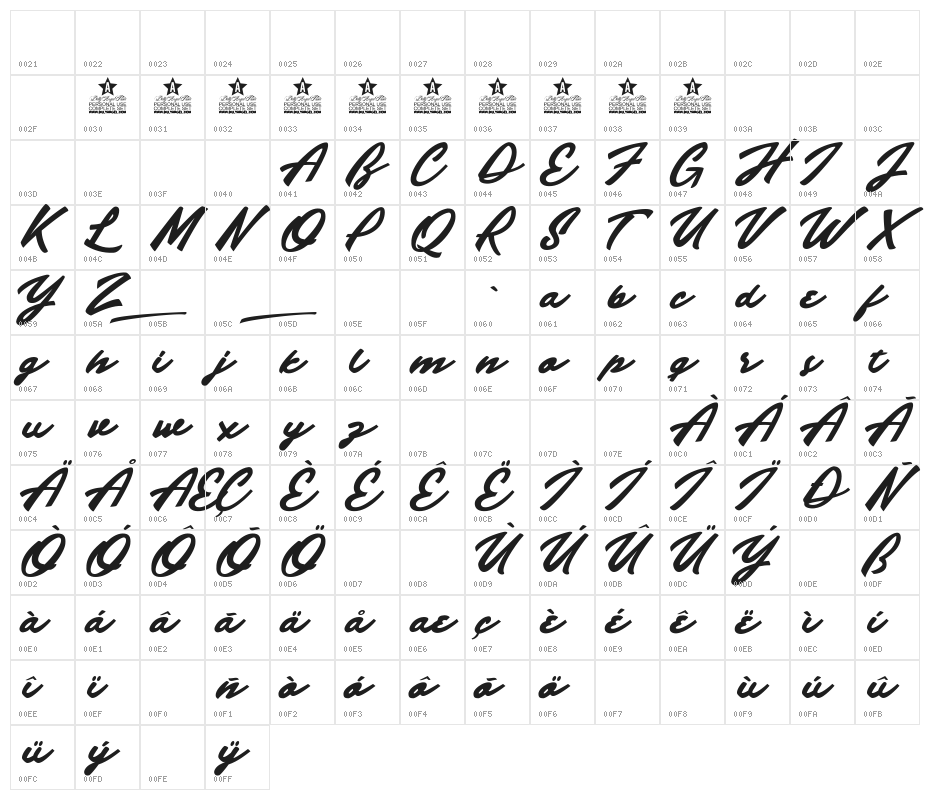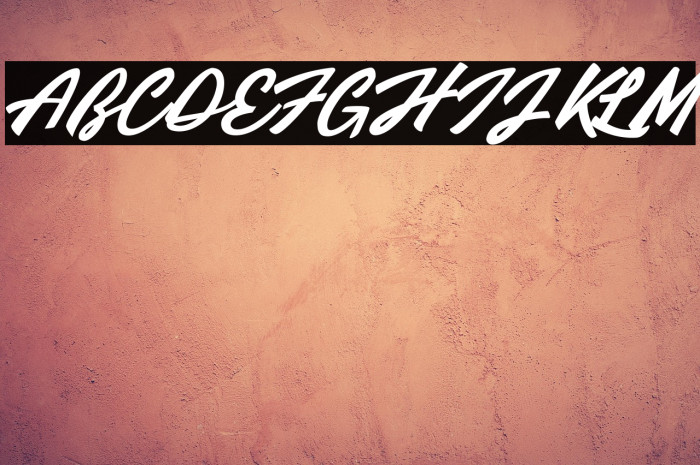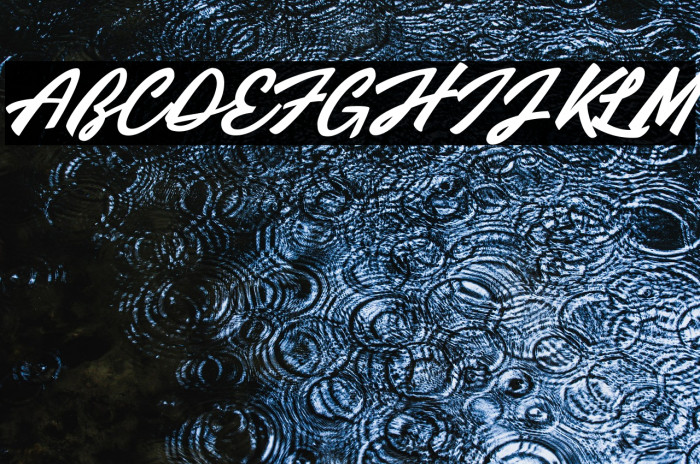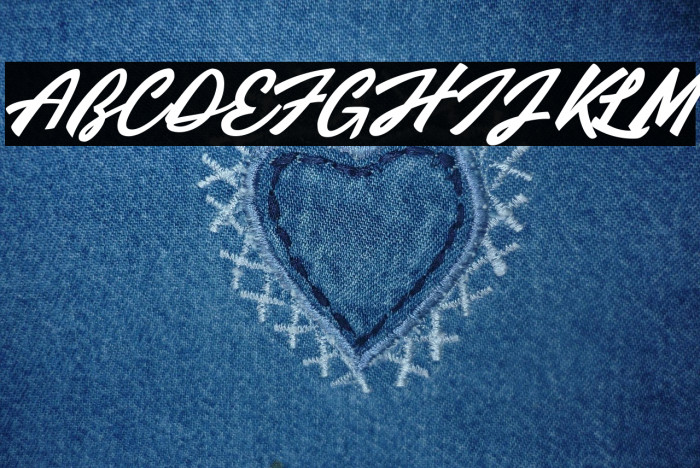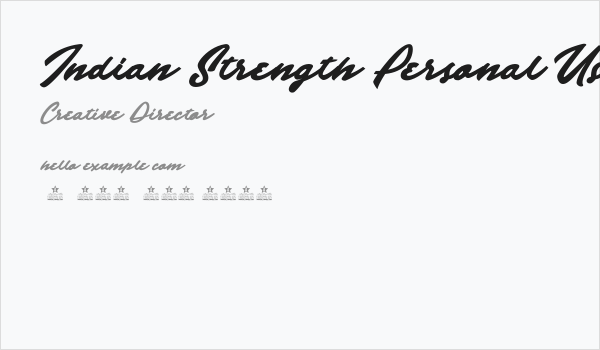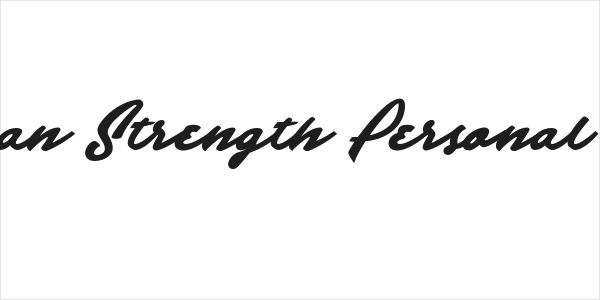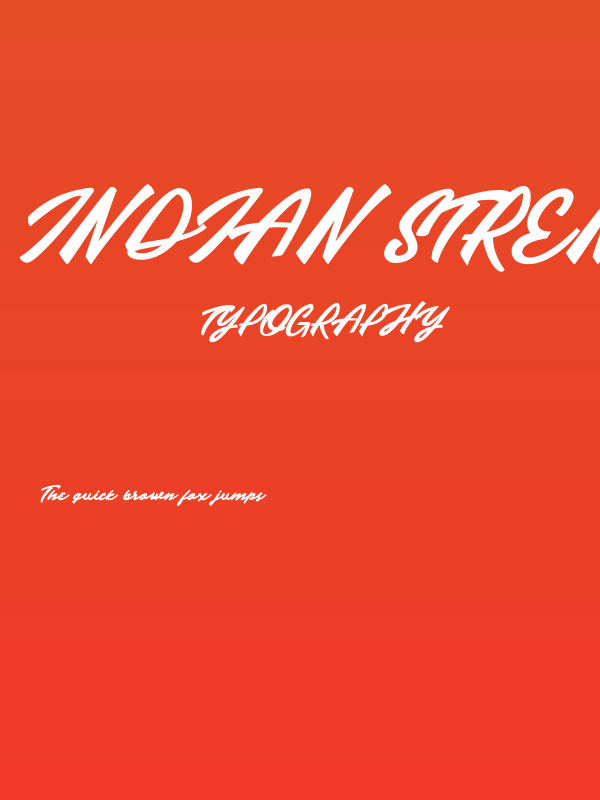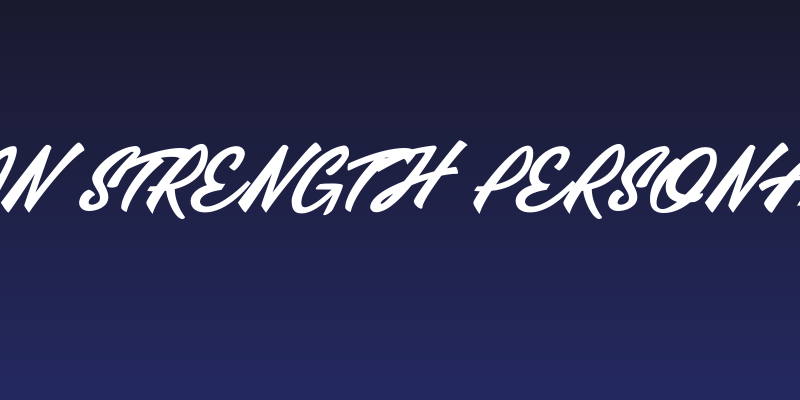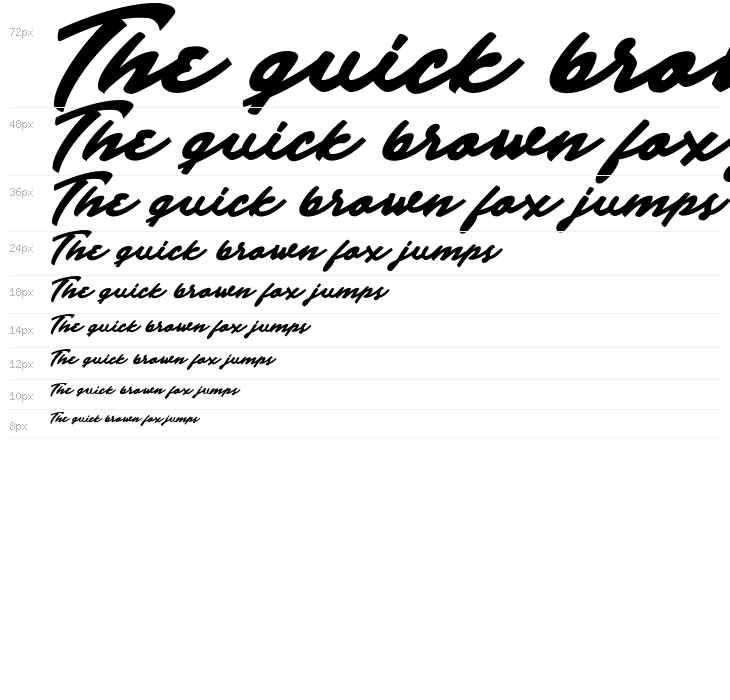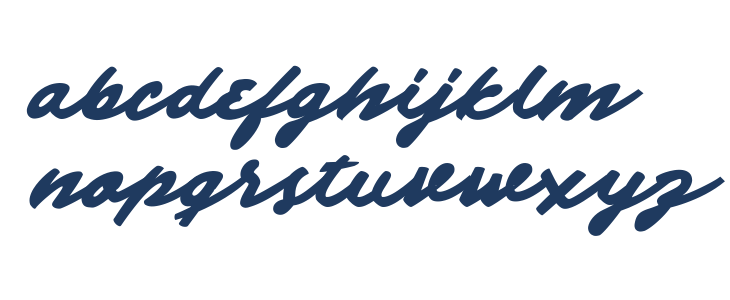
Indian Strength Personal Use Font
Indian Strength Personal Use Description
This font features a bold, script style with a strong, flowing appearance. The letters are connected, giving it a cursive look that is both elegant and dynamic. The uppercase letters are slightly larger and more pronounced, while the lowercase letters maintain a consistent flow. The font has a modern flair with a touch of vintage charm, making it suitable for various creative projects. The strokes are thick and consistent, providing a solid and impactful presence on the page. This font is ideal for making statements and capturing attention with its stylish and confident design.
| Overall Style | Modern, Vintage |